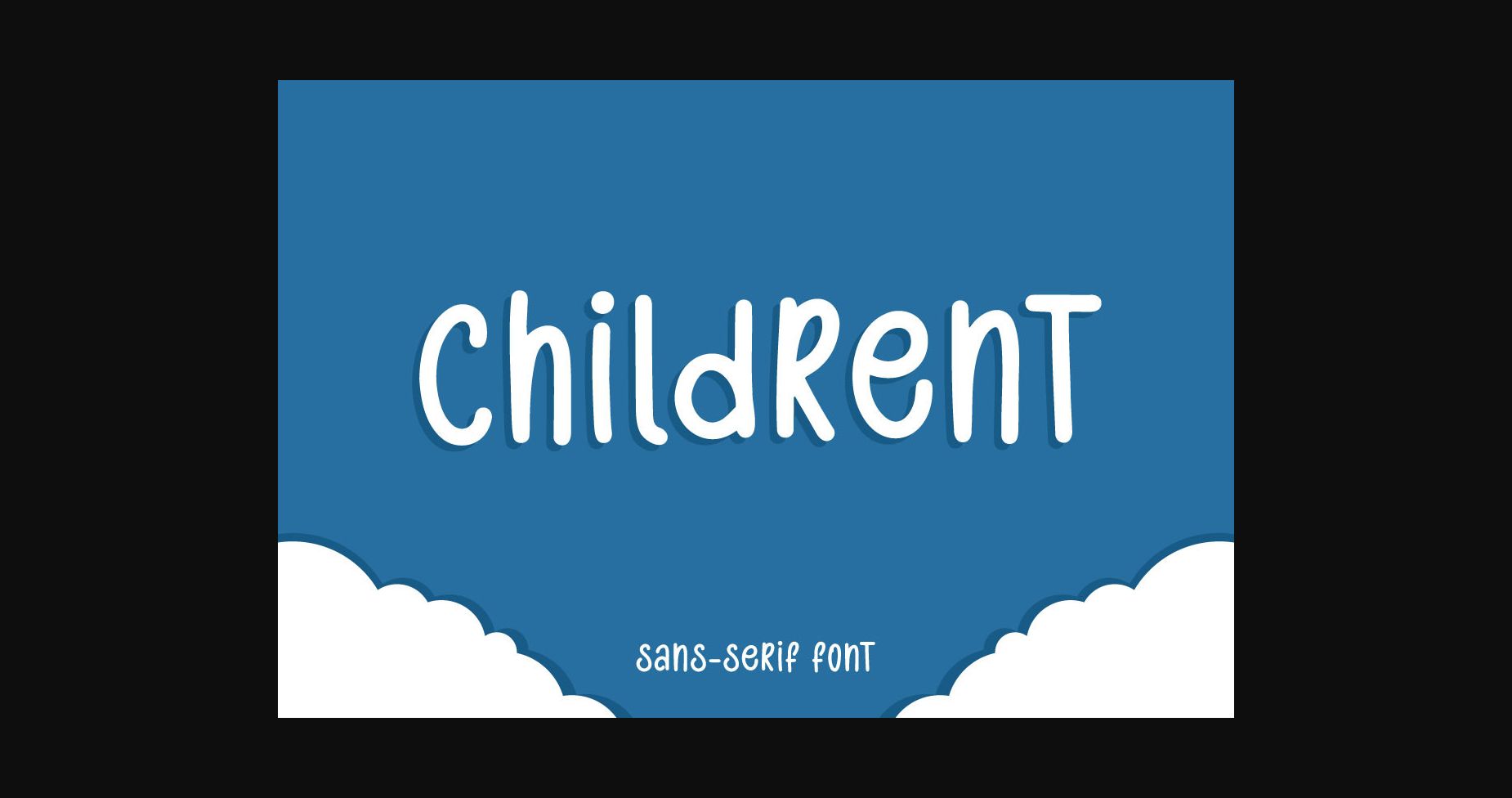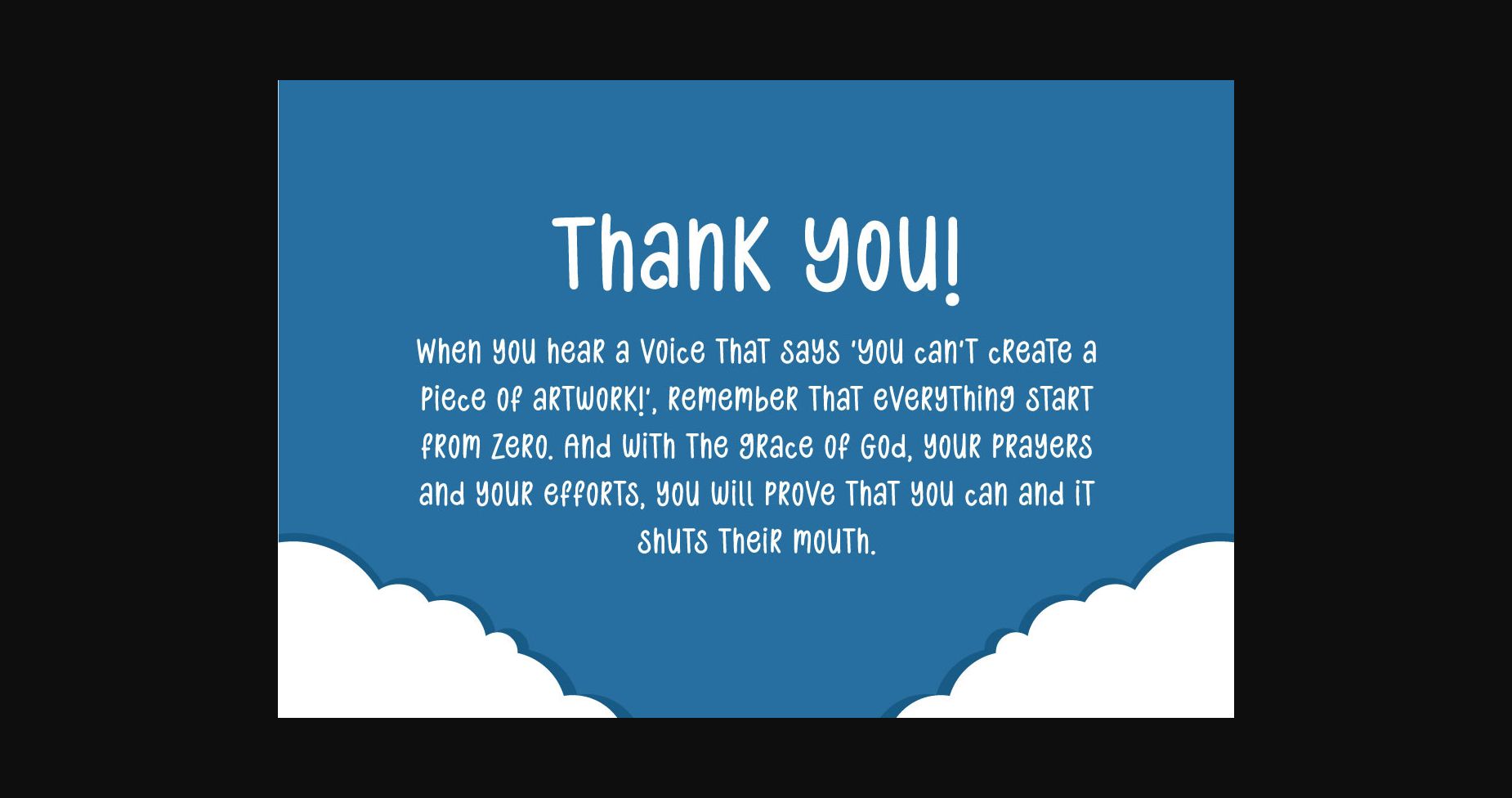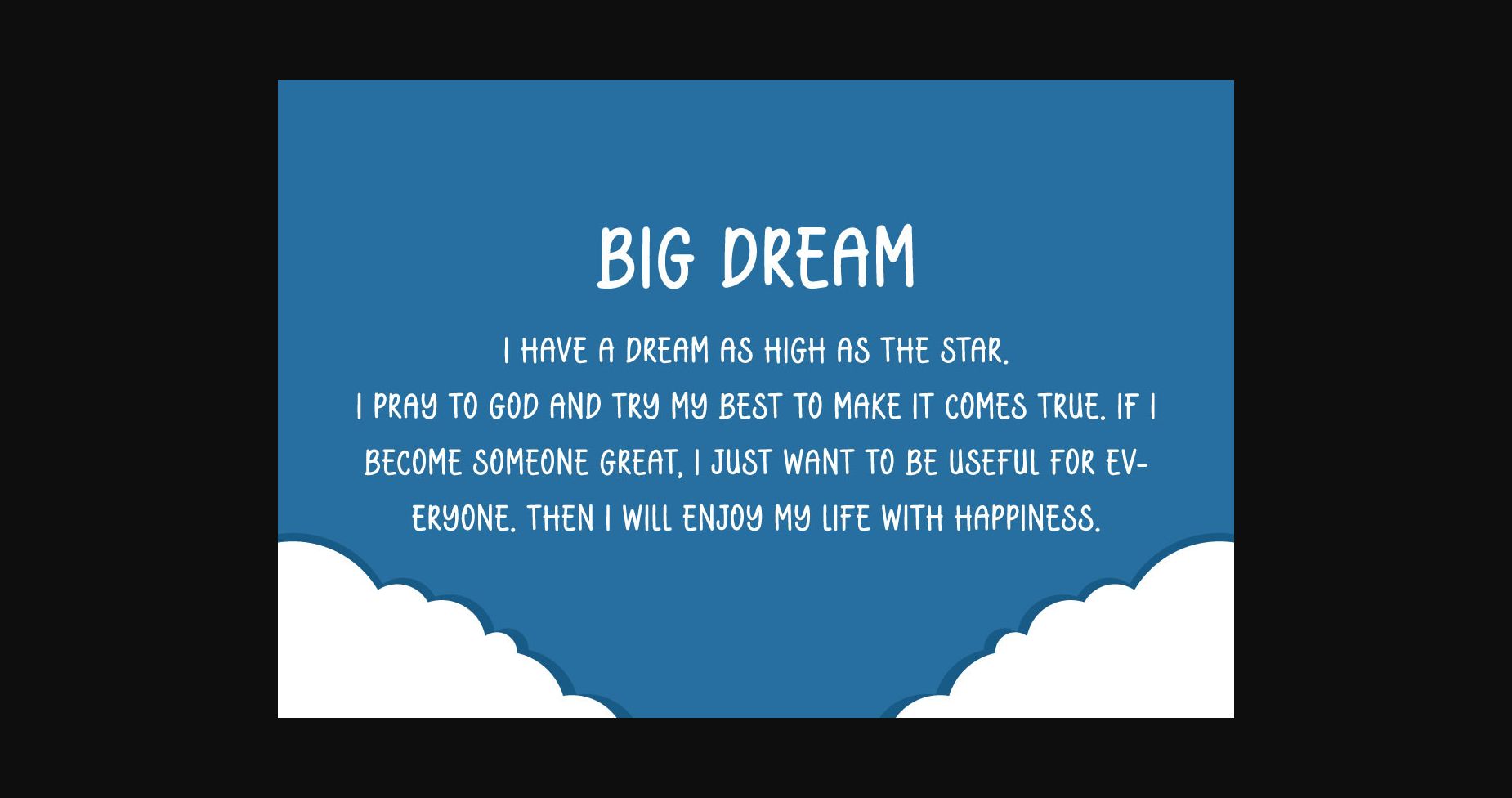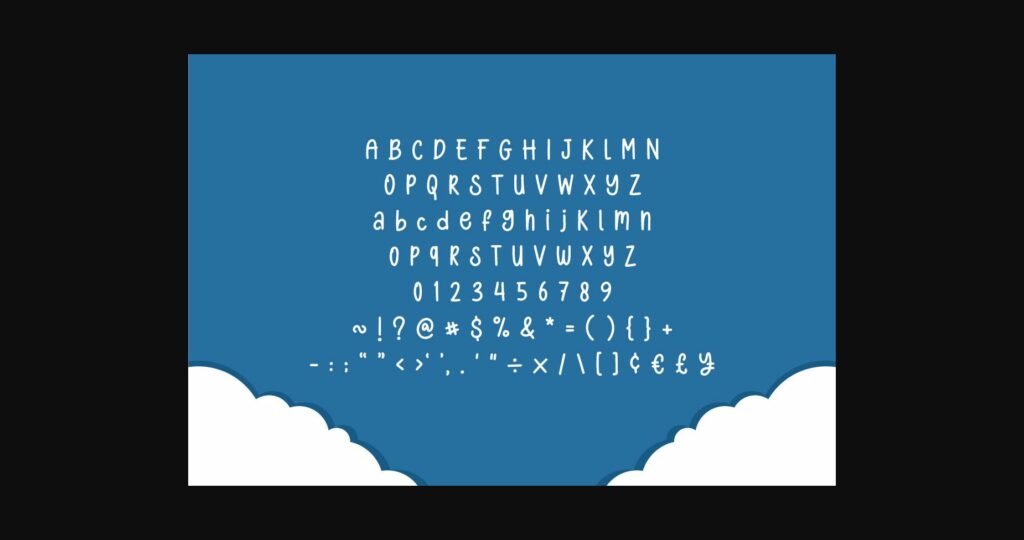
Childrent Font
About Childrent Font
Childrent is a clean, minimalist sans serif font that still maintains a playful vibe. Add it to your creative projects and you will love the results!